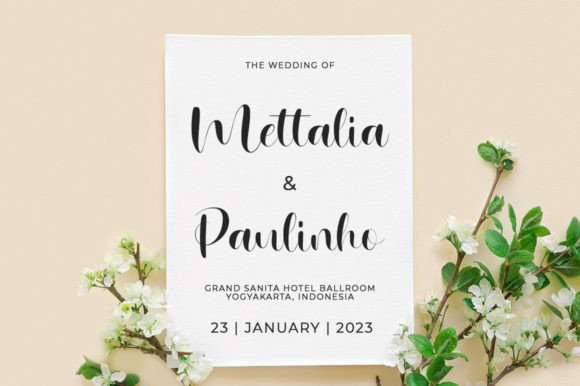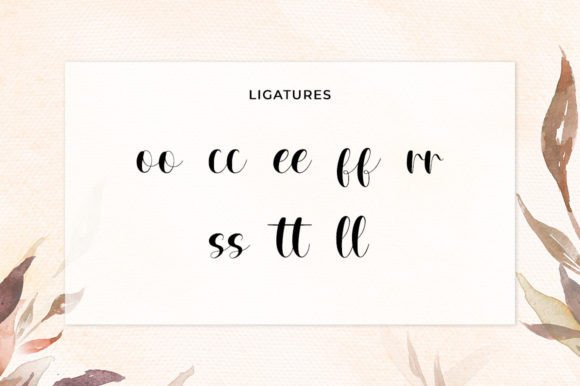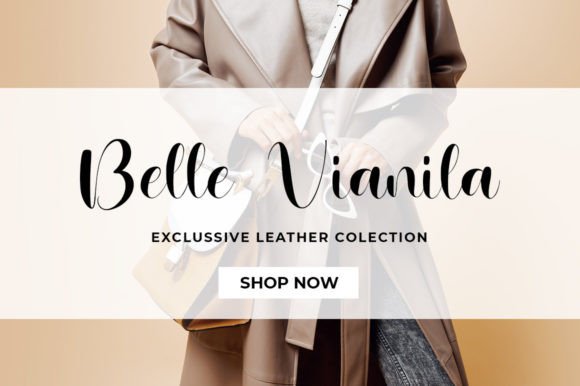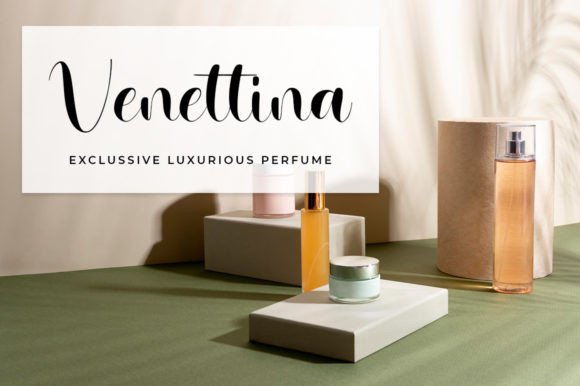
About Savanah Font
Introducing Savanah, a stylish script font. This beautiful script font offers a personal touch to your latest art project with an elegant, classy, and modern look.The Savanah Script offers gorgeous typographic perfect for many different projects such as logos & branding, invitations, stationery, wedding designs, social media posts, advertisements, product packaging, product designs, labels, photography, watermarks, special events, or anything that needs handwriting taste.